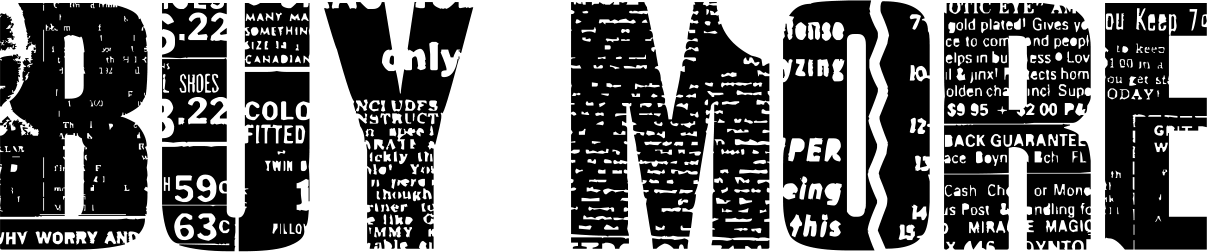
Buy More Font
A very special and modern font, all caps set of modern letters, fashionable that will help you gain the viewer’s attention. Buy More font, with its interesting design of each letter, has a hidden message. This craft font has enough letterforms so that you can have the most perfect typography.
The font can be used for cafes, advertisements, video games, movies, books, packaging, and anywhere else you would like to draw attention. It’s unique and eye-catching right?!